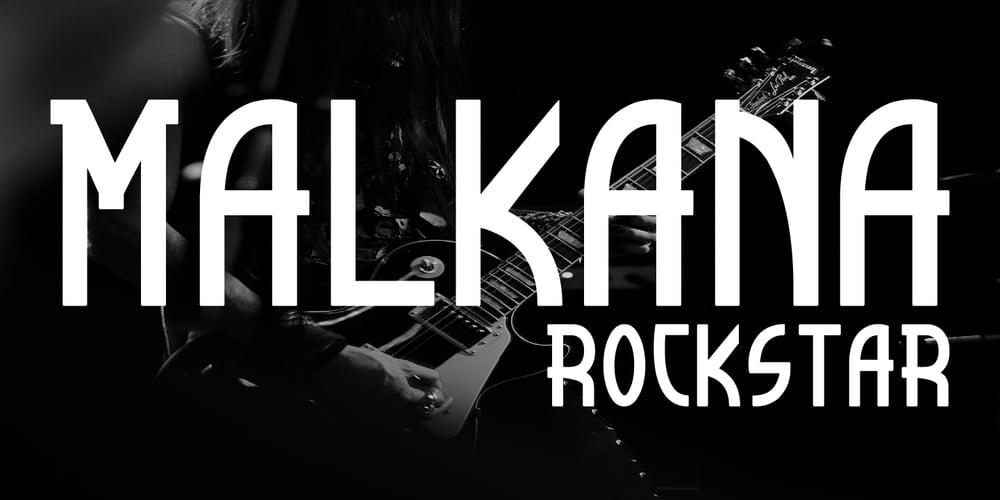
Malkana Font Family was designed by Gais Zaelani and published by JprintStudio. Malkana contains 4 styles and family package options. Introducing Malkana, Malkana is inspired by classic typography and brings its own unique style to any design project. It will take your designs to the next level!Ready to use for projects, texts, letters, or whatever you want!